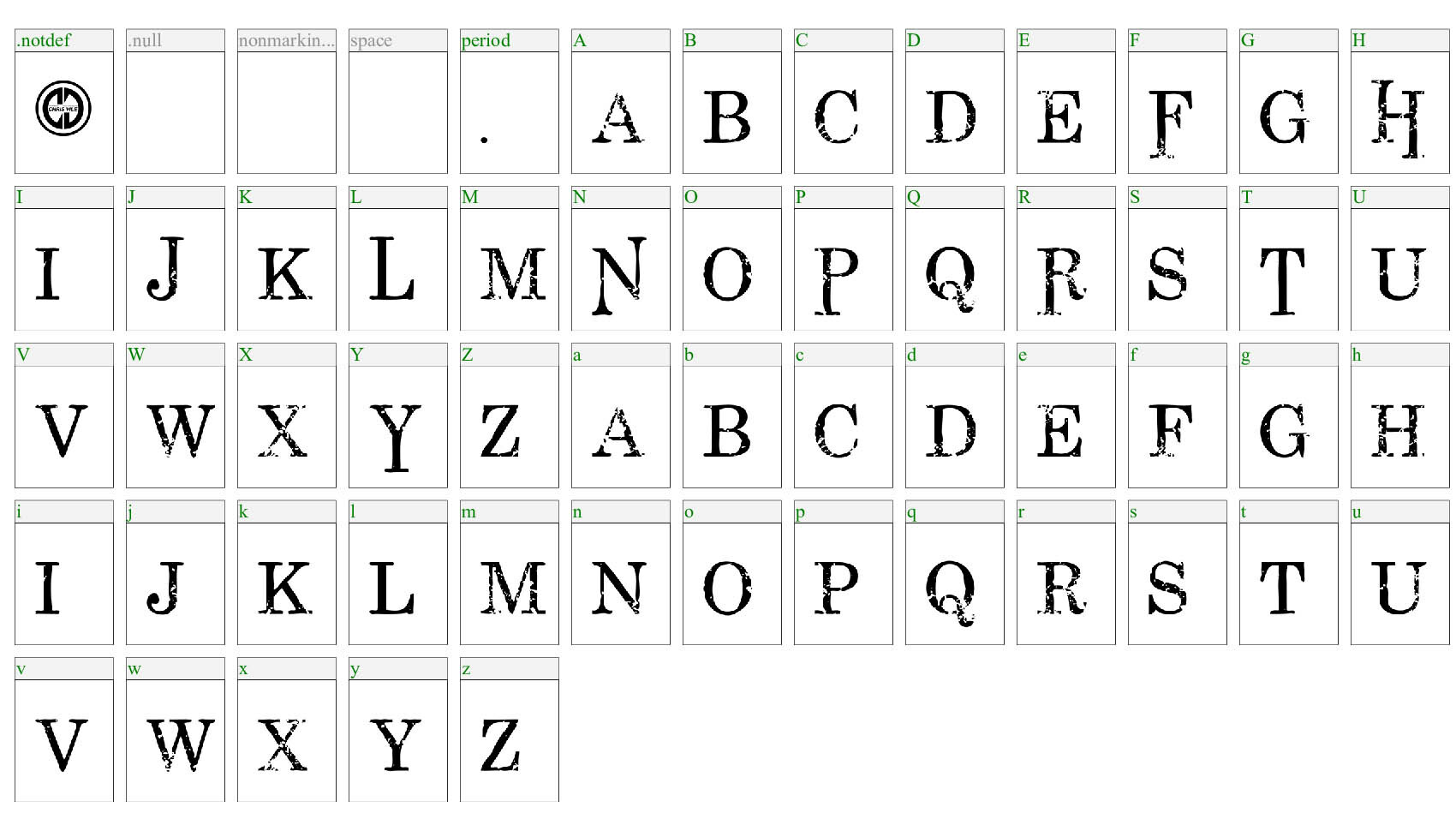
+2Font License for Fallen Spartans$49.00 Add More Add to CartGo to CheckoutSave this product for later Favorite Favorited View FavoritesFont License for Fallen SpartansProduct Details Font Details This font is an all uppercase font. It does not include numbers, accents, punctuation (only the period) or any other styles. Theme: Eroded Show MoreYou May Also LikeFont License for Category 5$49.00 Buy NowFont License for Natas One$49.00 Buy NowFont License for The Grinder$49.00 Buy NowGruesome Lullaby Shirt$21.50 Buy Now